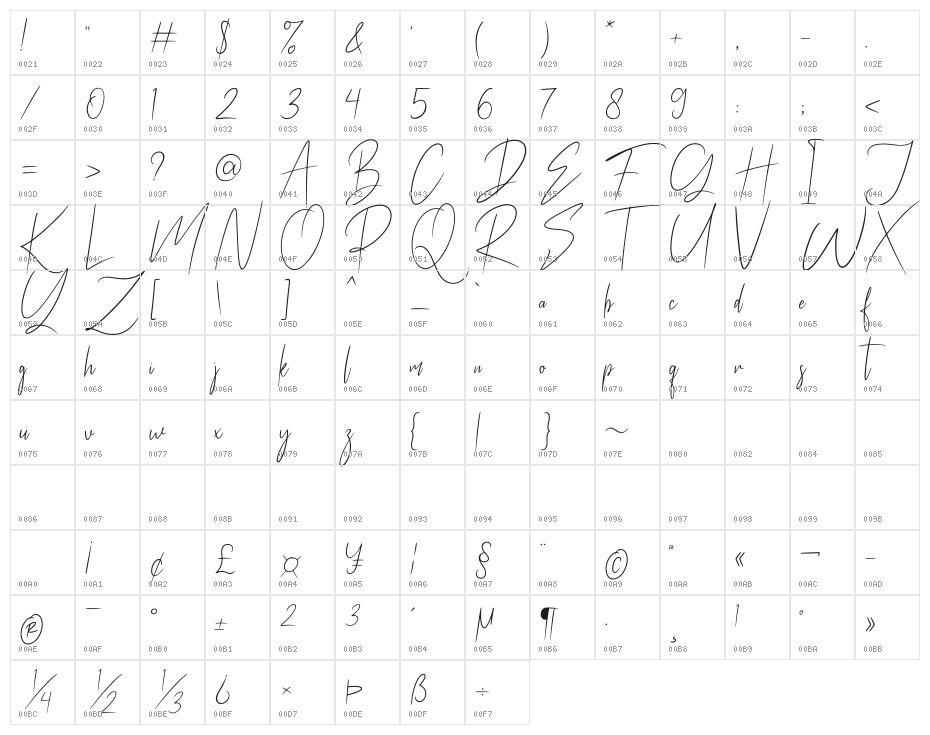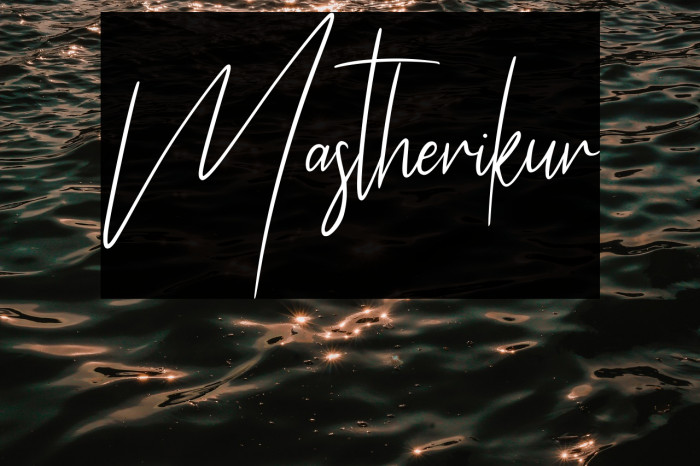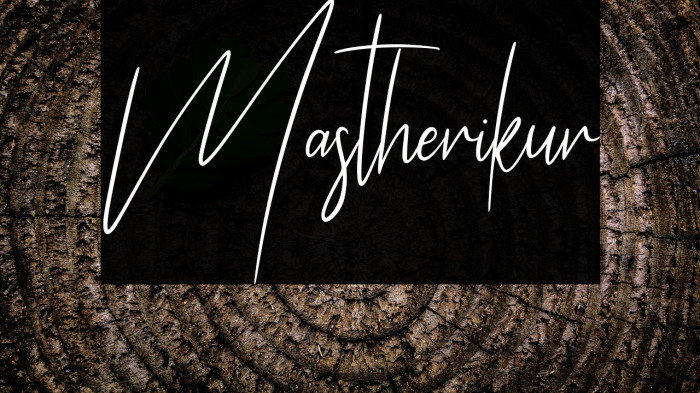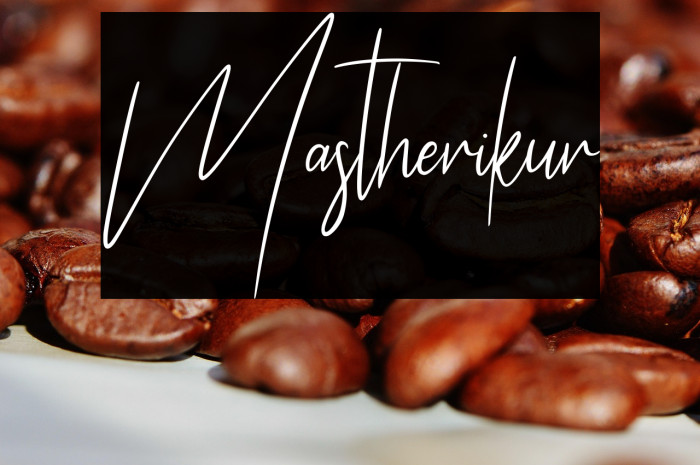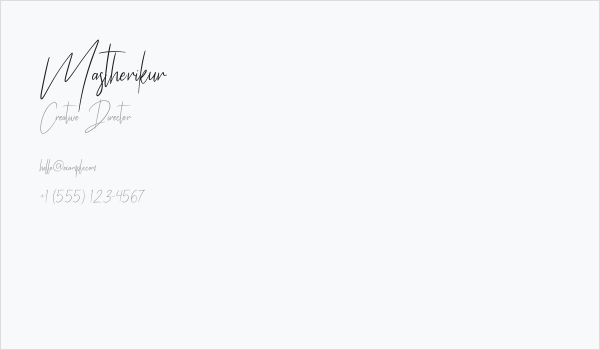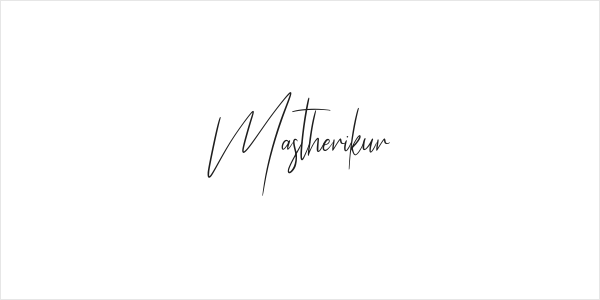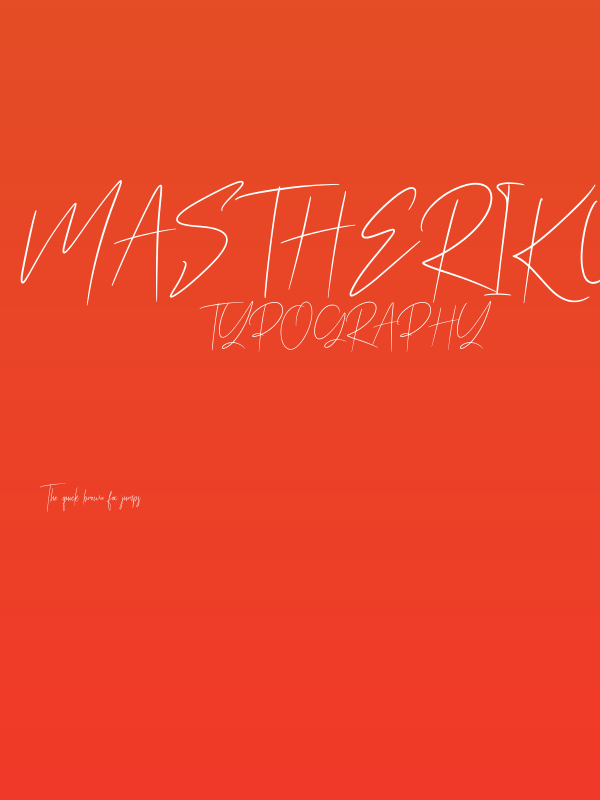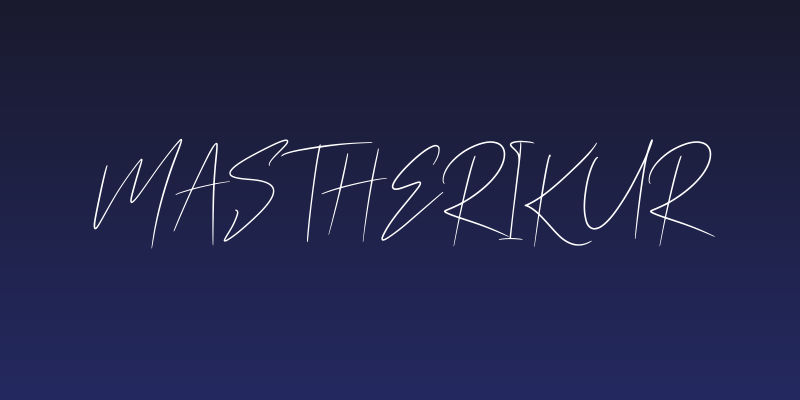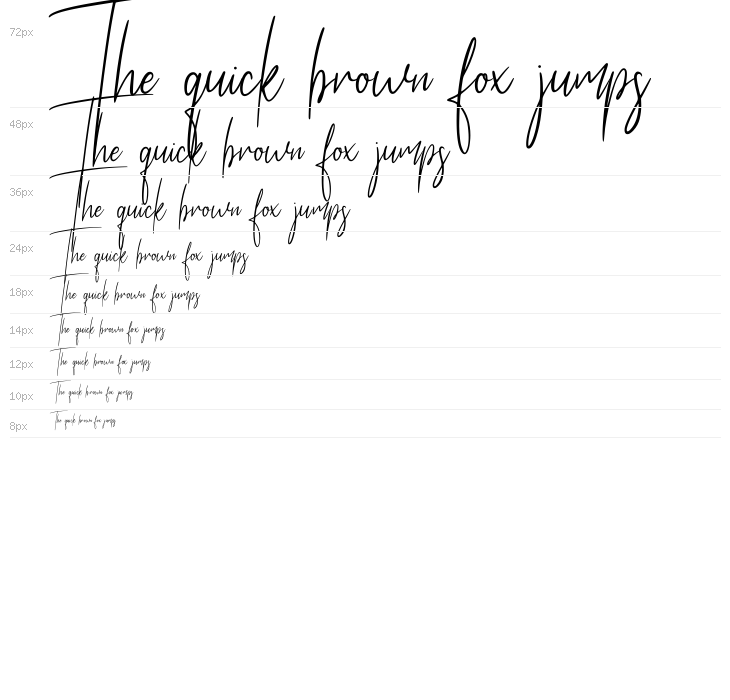
Mastherikur Font
Mastherikur Description
This font features a dynamic and expressive handwritten style, characterized by its fluid and elongated strokes. The uppercase letters are tall and slender, with a slight slant that adds a sense of movement and elegance. The lowercase letters maintain a consistent flow, with some characters featuring unique loops and curves that enhance its artistic appeal. The numerals are distinct and maintain the same slender and elongated form as the letters, ensuring a cohesive look throughout. Special characters are creatively integrated, maintaining the overall aesthetic of the font. This font is perfect for projects that require a personal and artistic touch.
Overall StyleArtistic, Elegant
Use CaseLogos, Invitations, Artistic Projects
Proposed ProjectsIdeal for wedding invitations, personal branding, artistic posters, and creative social media graphics.